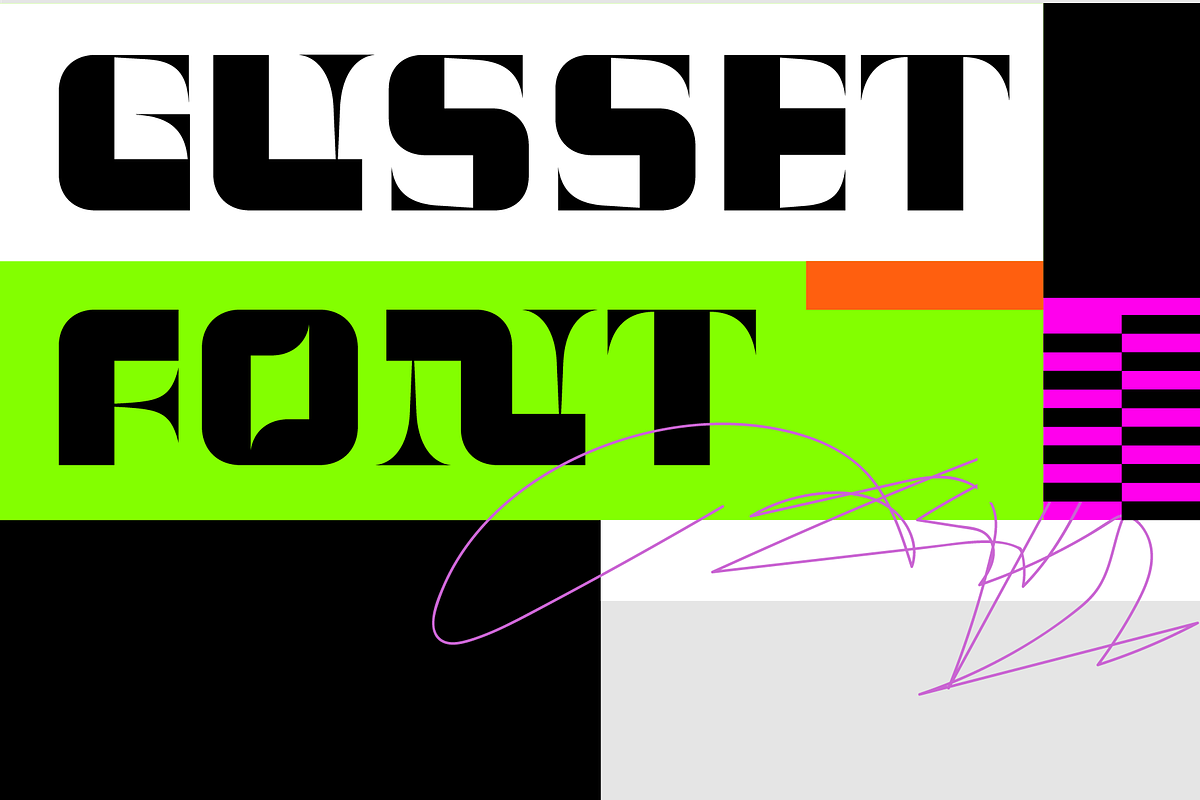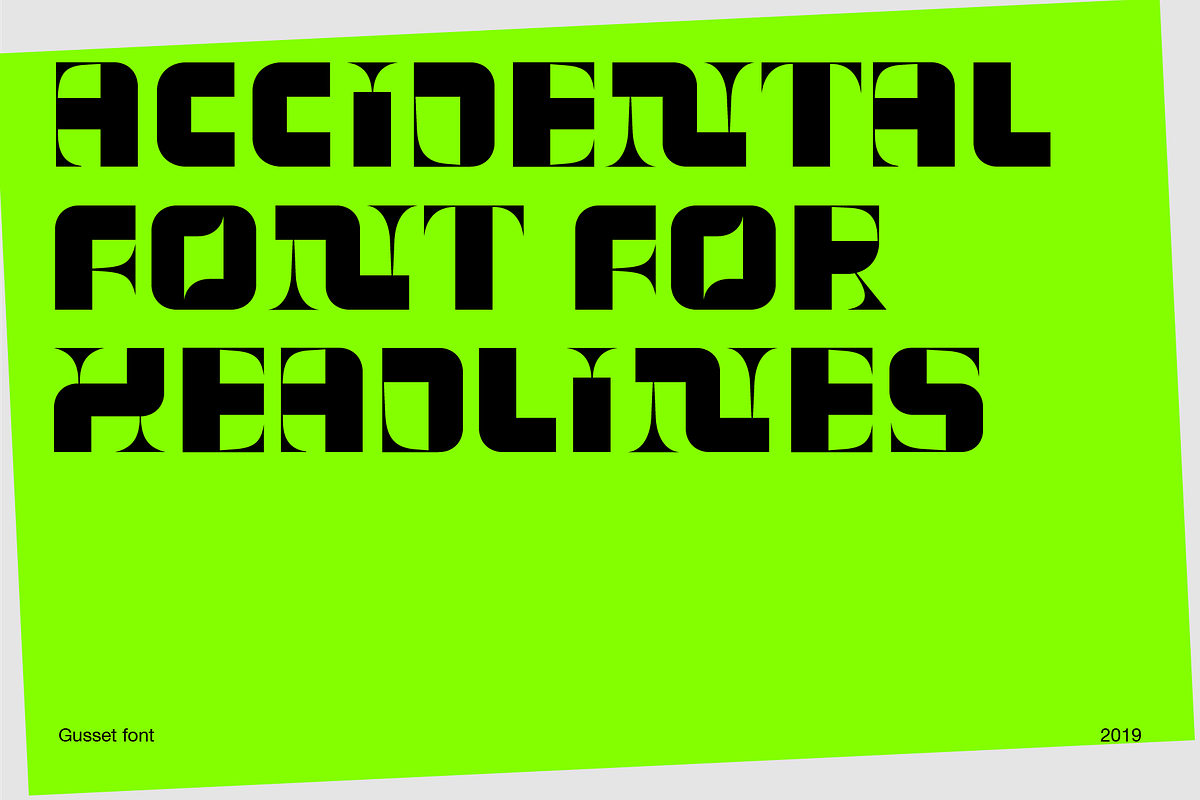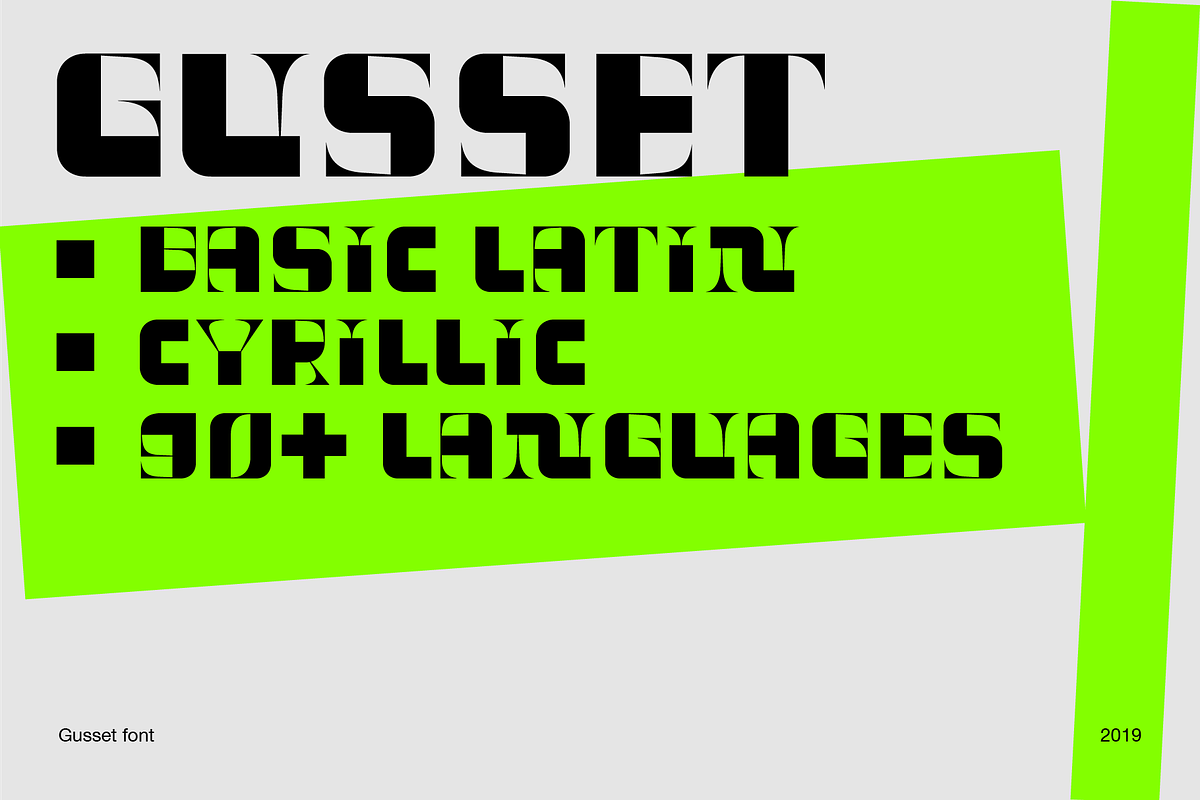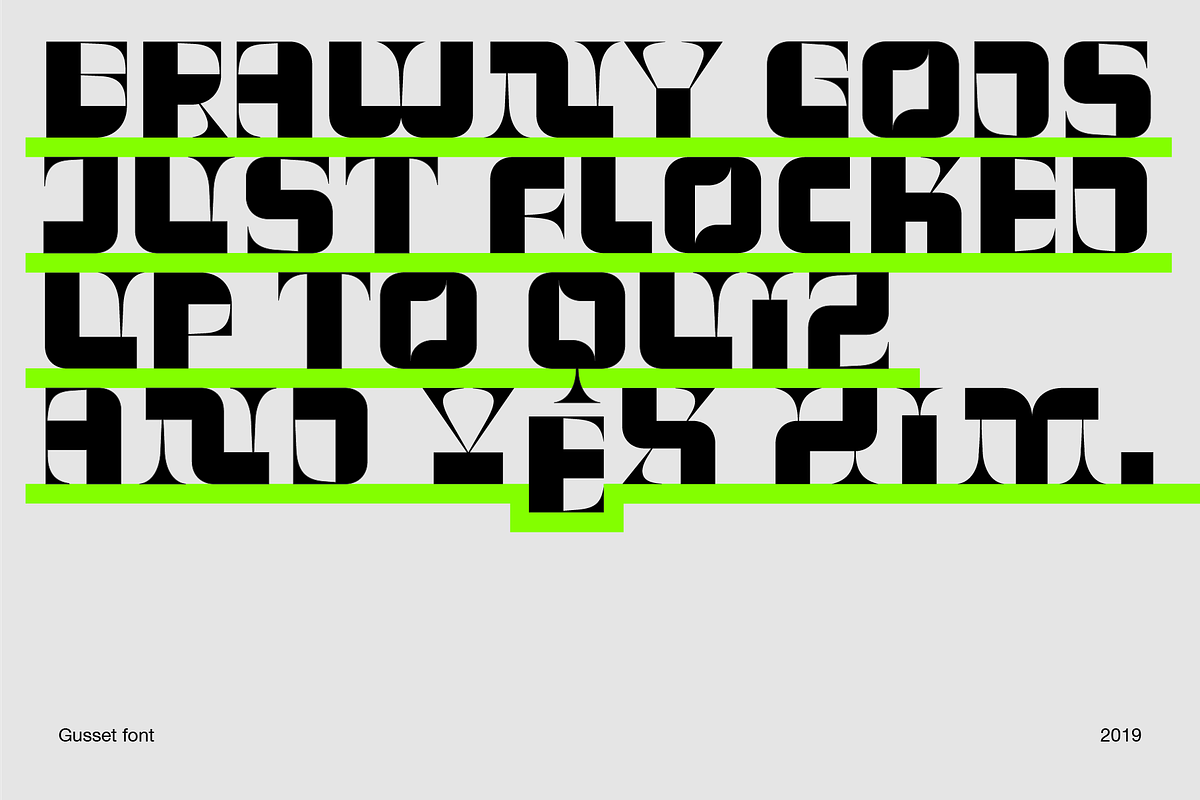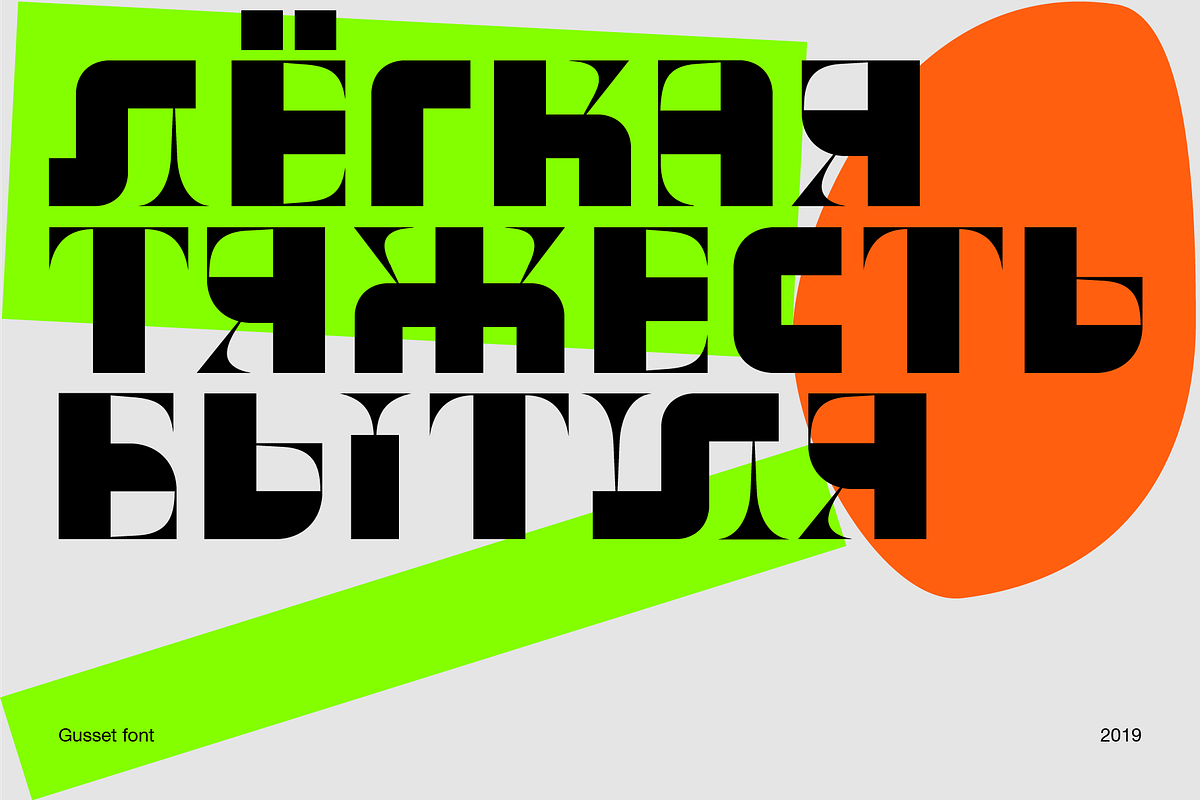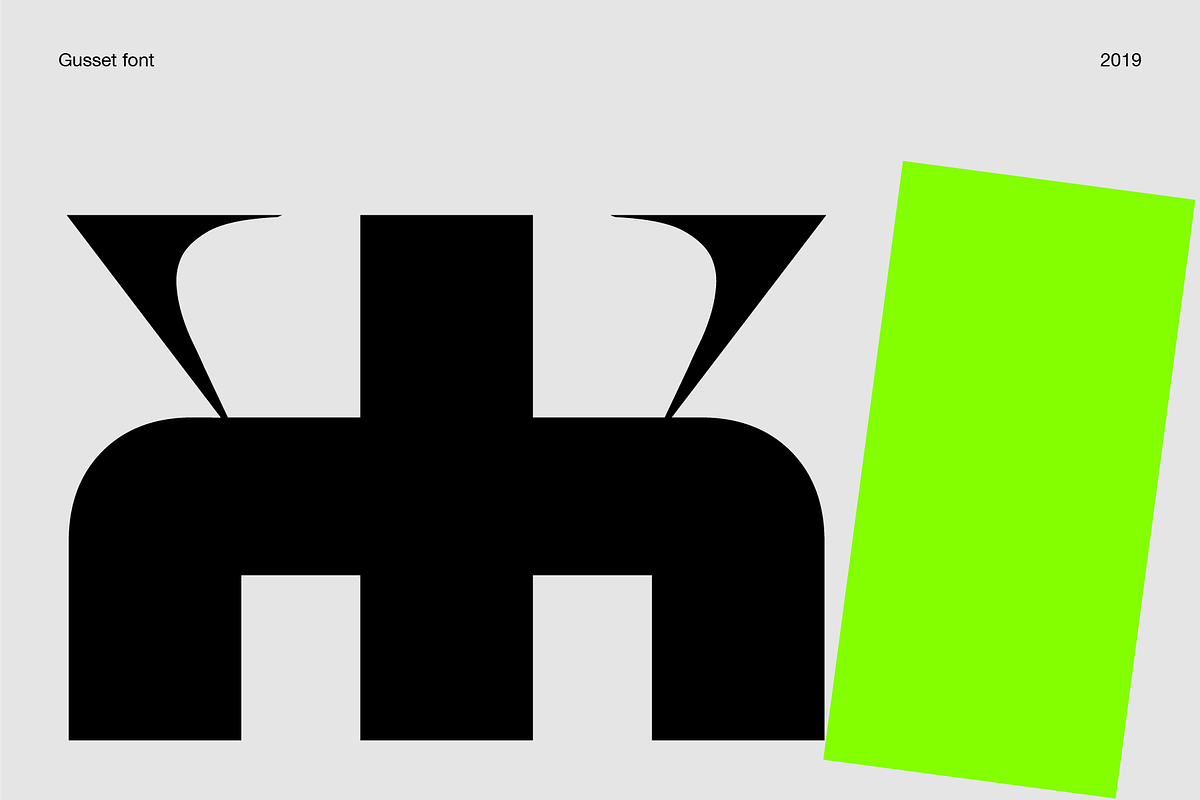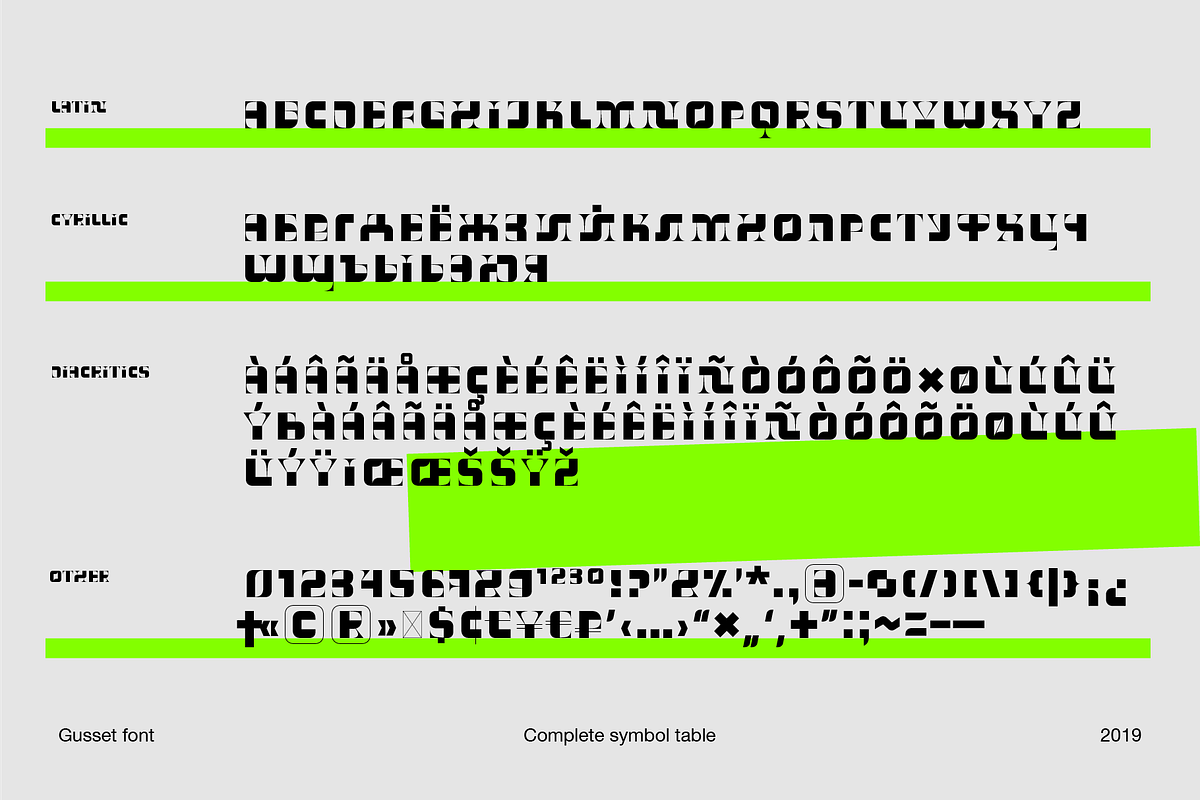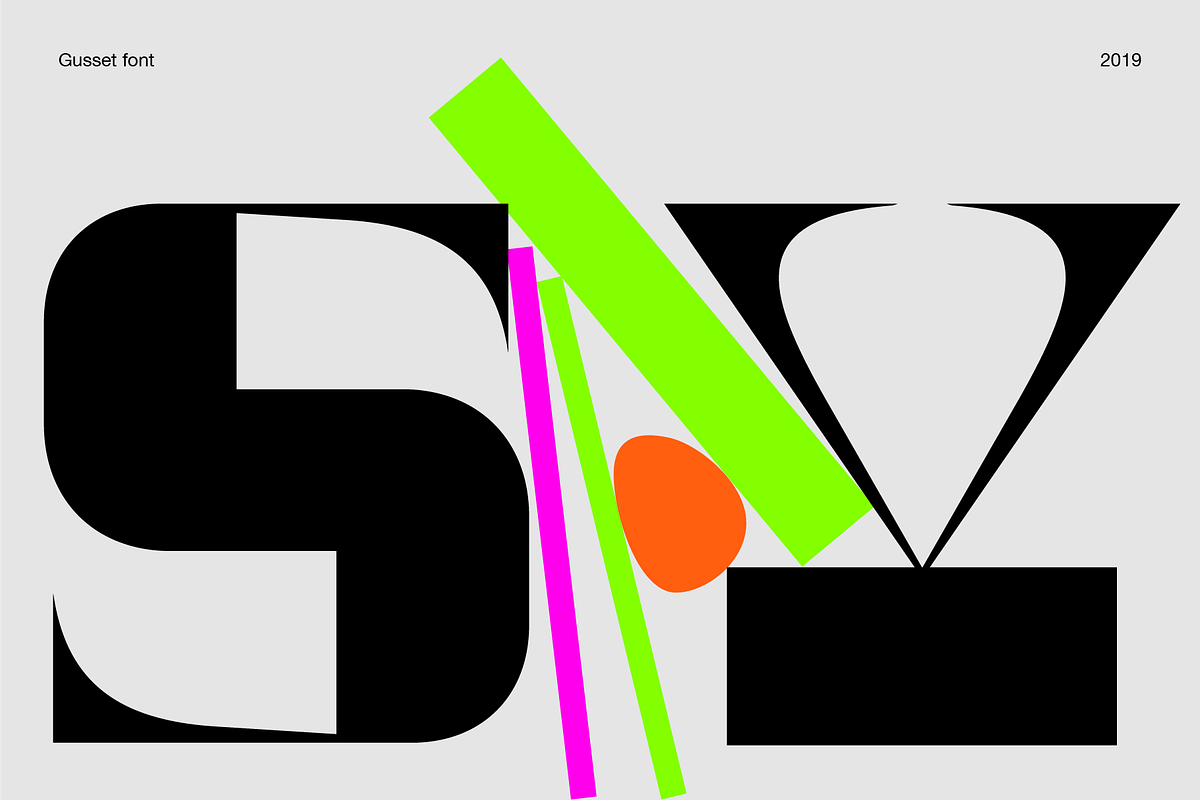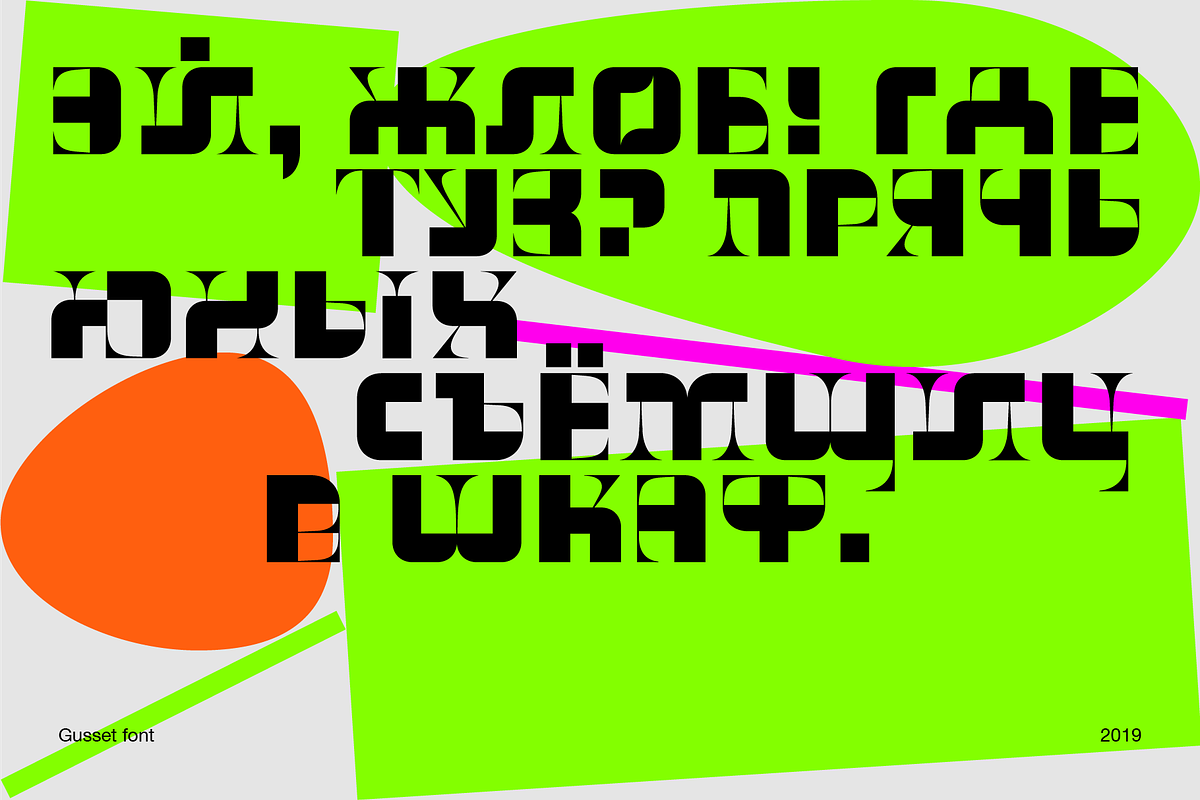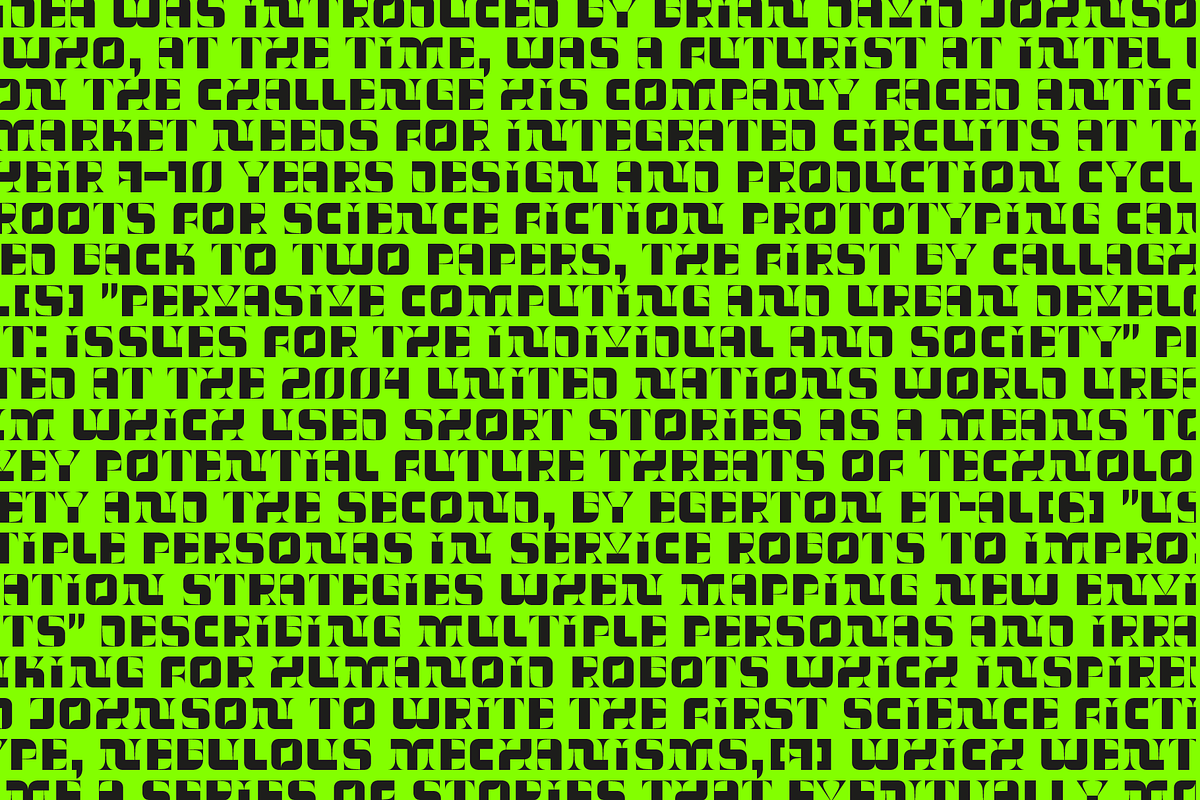
GUSSET Display modular font
Gusset is a simple modular font. It was created for headlines and posters. It creates a dense and interesting texture in the text set. Simple rounded curves contrast with "wedges". You can freely use it for bright posters or labels, it can also become an interesting part of your corporate identity.
Gusset supports: — Basic Latin — Extended latin — Cyrillic — Diacritics — Numbers — Punctuation signs — Currencies — All Uppercase